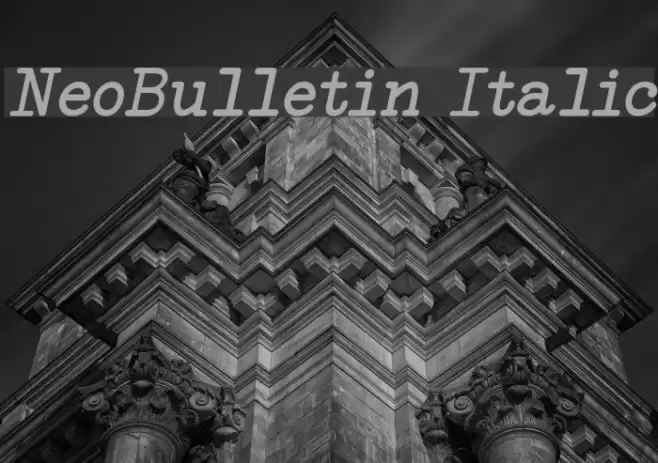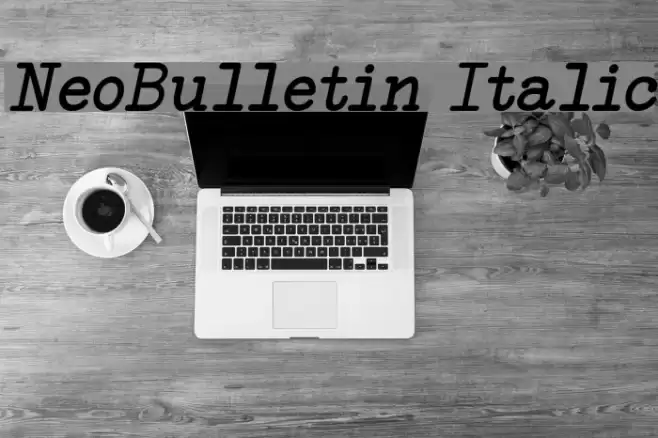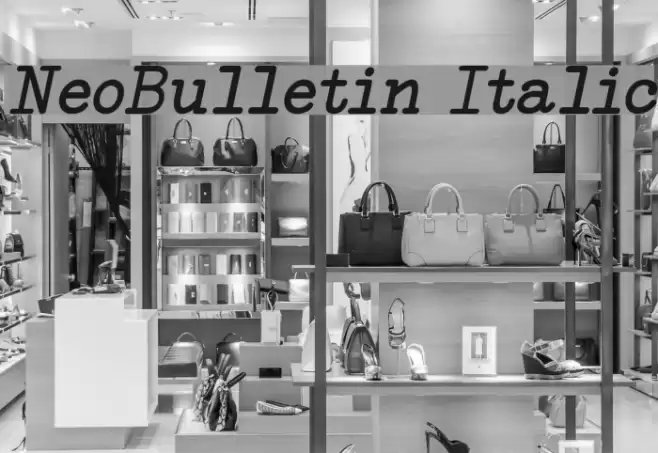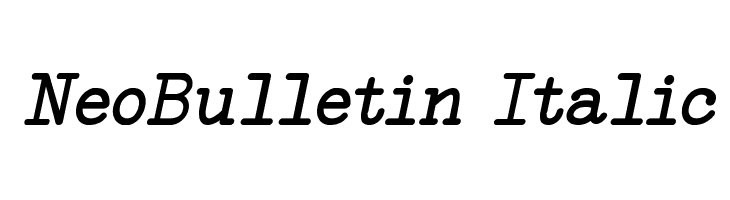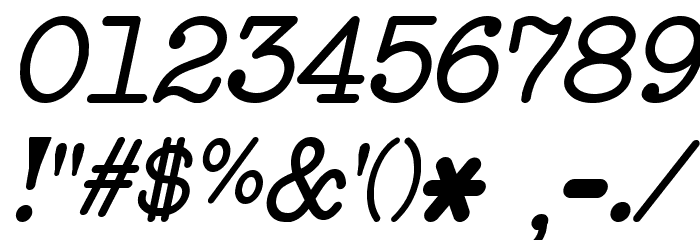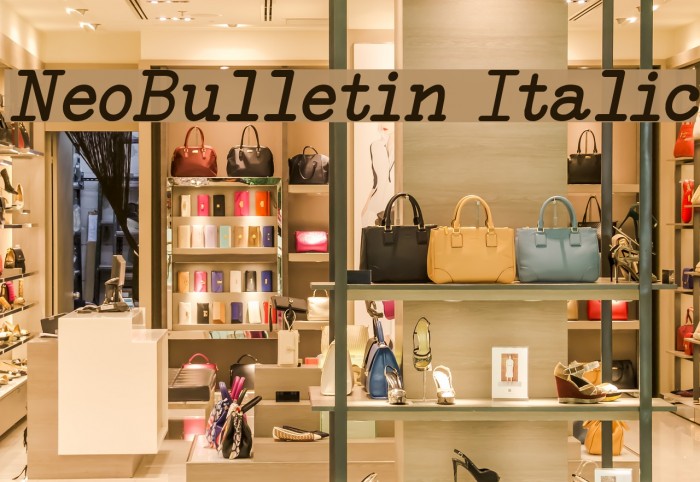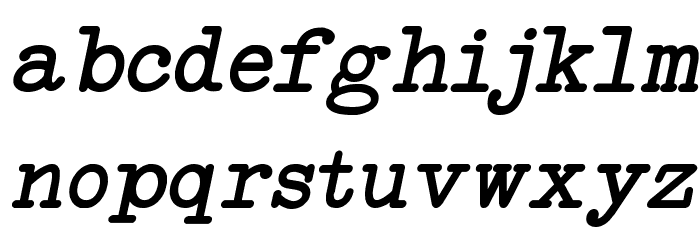
NeoBulletin Italic Font
NeoBulletin Italic Description
This font features a classic italic style with a distinct slant, giving it a dynamic and elegant appearance. The characters are well-defined with moderate stroke contrast, providing a clear and readable text. The uppercase letters maintain a traditional serif form, while the lowercase letters exhibit a smooth, flowing style. Numbers are bold and easily distinguishable, making them suitable for various applications. Special characters are crafted with attention to detail, ensuring consistency across the font. The overall design is versatile, suitable for both formal and creative projects.
A classic italic serif font with moderate contrast and elegant style from Uncategorized fonts.
- Overall Style: Classic